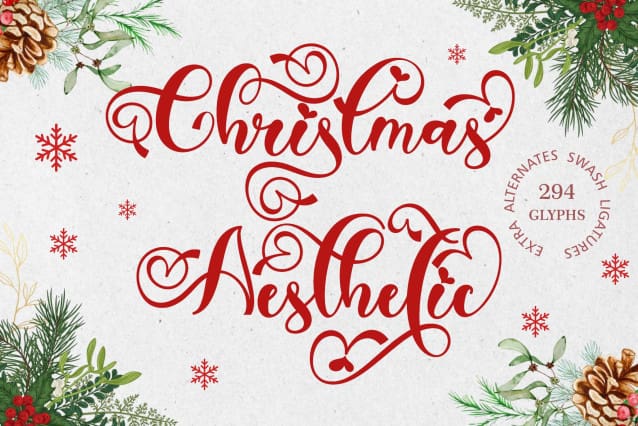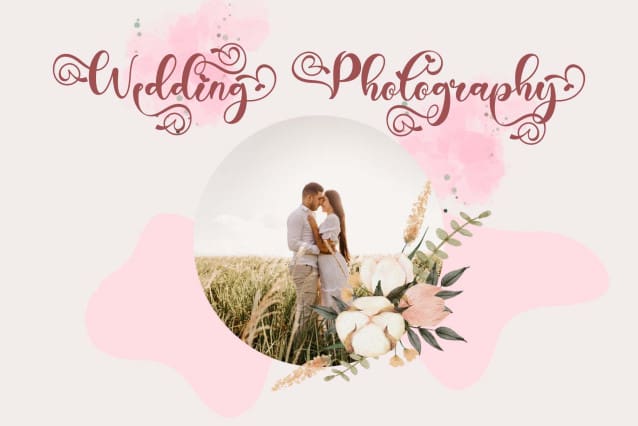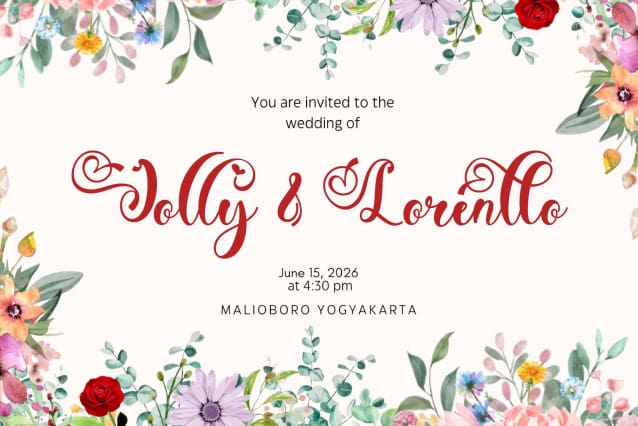
Christmas Aesthetic Font
Christmas Aesthetic Font is a very beautiful handwritten font. It comes with capital letters, lowercase letters, numbers, punctuation, ligatures, multilingual support, swashes, alternates, and more. It is perfect for use on Christmas, weddings, parties, Valentine’s, invitations, photography, and more.